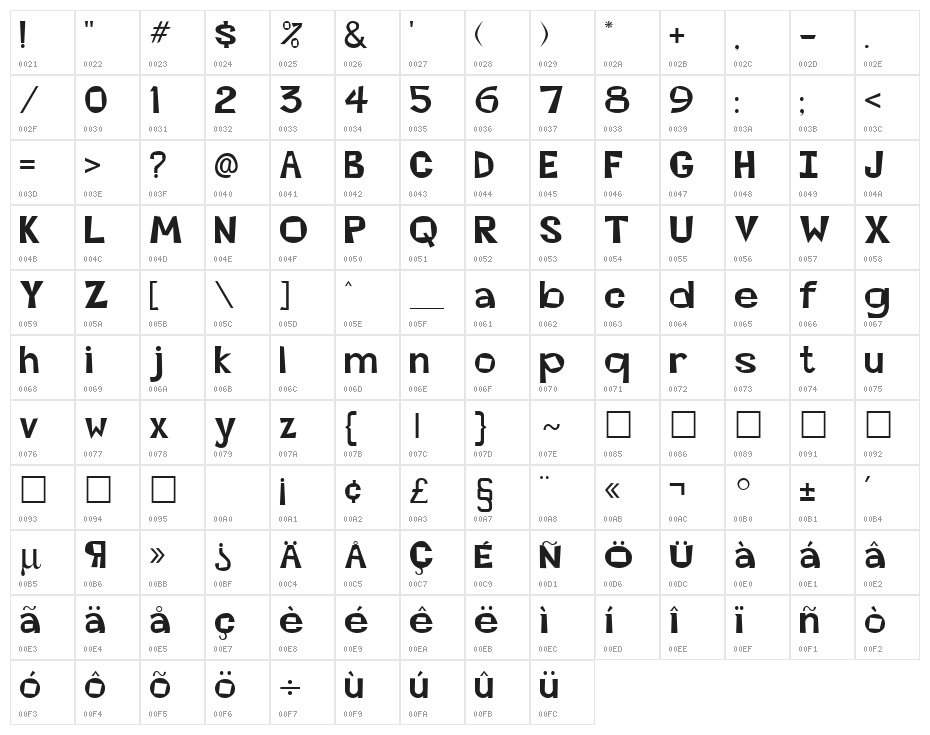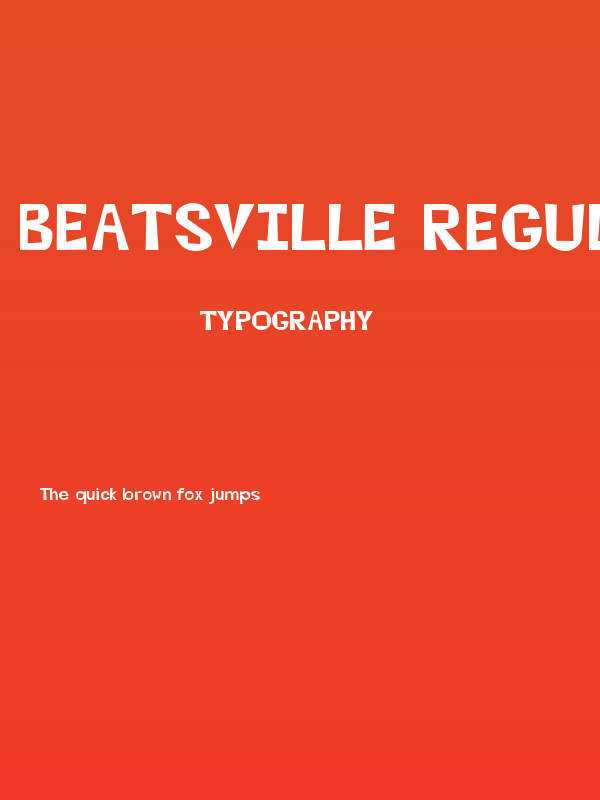
Beatsville Regular Font
Beatsville Regular Description
This font exhibits a bold and playful style with a distinct retro flair. The characters are uniquely shaped, featuring angular cuts and varying stroke widths that add a dynamic and energetic feel. The uppercase letters are particularly striking, with exaggerated serifs and a slightly condensed form that gives them a strong presence. The lowercase letters maintain the playful aesthetic with rounded edges and a consistent flow. Numbers and special characters are designed to match the overall style, ensuring a cohesive look across all text elements. This font is ideal for projects that require a touch of nostalgia and creativity.
| Proposed Projects | Ideal for vintage-themed posters, album covers, branding, and creative advertising. |